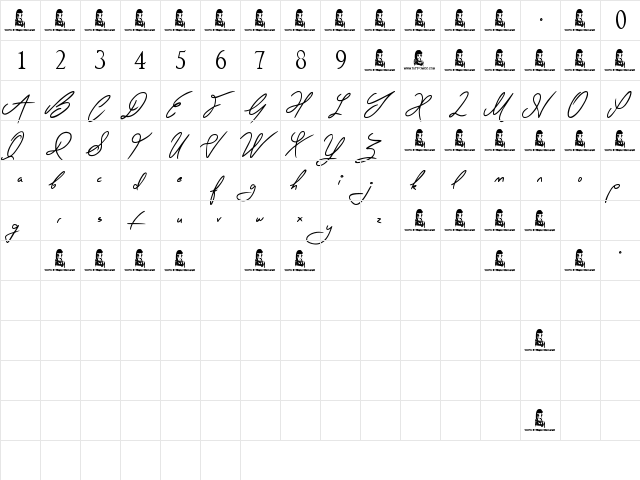
Ring Master Regular
| Foundry | Jonathan S. Harris |
| Designer | Jonathan Stephen Harris |
Design Context for Ring Master Typeface
Ring Master takes a measured approach to typography — its balanced proportions and neutral character make it a reliable workhorse for both digital and print work.